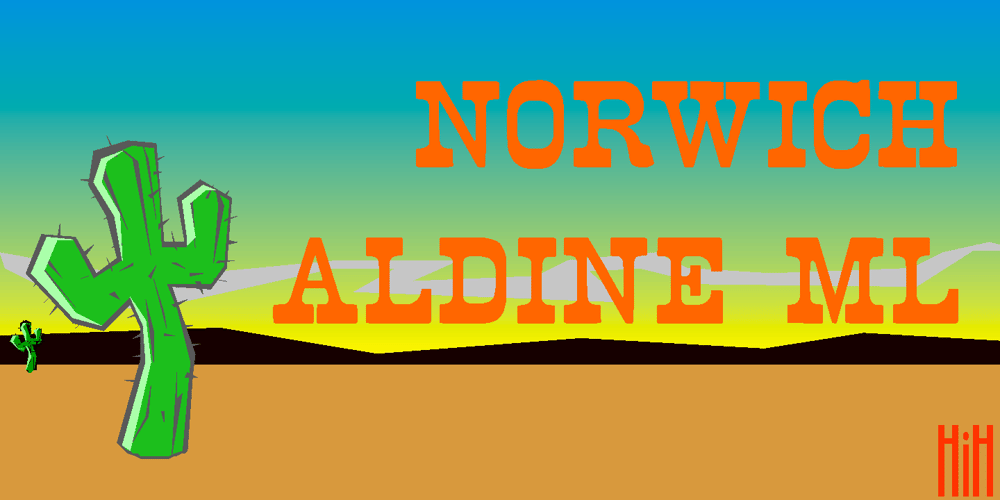
Norwich Aldine ML Font Family was designed by published by HiH. Norwich Aldine ML contains 4 styles and family package options. Norwich Aldine ML is a all-cap typeface with enlarged serifs, designed and produced in wood by William Hamilton Page of Norwich, Connecticut in 1872. Norwich Aldine ML is a fine example of the strength of decorative wood types: large, simple type forms that provide the visual boldness sought by advertisers of the Victorian period. While our marketing has gotten so very sophisticated, there is always a place for a simple, visually strong typeface. Although about 14 miles inland, Norwich, Connecticut lies at the head of the Thames River. The river is both wide and deep, and therefore was not bridged in the early 20th century. Until then, if you wanted to get from Groton on the west bank to the whaling port of New London on the east bank by land, you had to go by way of Norwich. Because of its size, the Thames is navigable all the way from Norwich to New London. Docks were built in Norwich around 1685 and the city became Connecticut’s 2nd largest port by 1800. With the construction of the Norwich & Worcester Railroad in 1835, Page could easily ship his wood type north by rail or south by coastal schooner. Included with our font, Norwich Aldine ML, are two 19th century printer’s ornaments of sailing ships similar to those that sailed up the Thames to Norwich. Reference: Moon’s Handbooks, Connecticut 2nd Edition (Emeryville CA 2004) The family has expanded from one to four fonts: 1. Norwich Aldine ML: the concept font, computer-sharp corners and smooth curves, as we imagine it was designed. 336 Glyphs including some reduced-width alternatives for better letter spacing. 2. Norwich Aldine Worn ML: the way actual wooden type would look after have been used for a while. 332 Glyphs 3. Norwich Aldine Distressed ML: the way the wooden type would look after it had really been used, perhaps abused. Alternatives to the more popular letters reflect the damage that typically occurs on a well-wormn font, with nicks, cuts and scratches and the overall wear that reduces the overall height and leads to uneven inking due to varying heights in the chase. A couple of bullets look like bullet holes. 345 glyphs. 4. Norwich Aldine Cyrillic: Cyrillic includes alll English and Cyrillic letters for MS Windows Code Page 1251, ISO 8859-5 and MacOS Cyrillic. 235 glyphs. We did Cyrillic because is was fun and we felt the basic design cried out for Cyrillic. While obviously subjective, we hope you will agree.